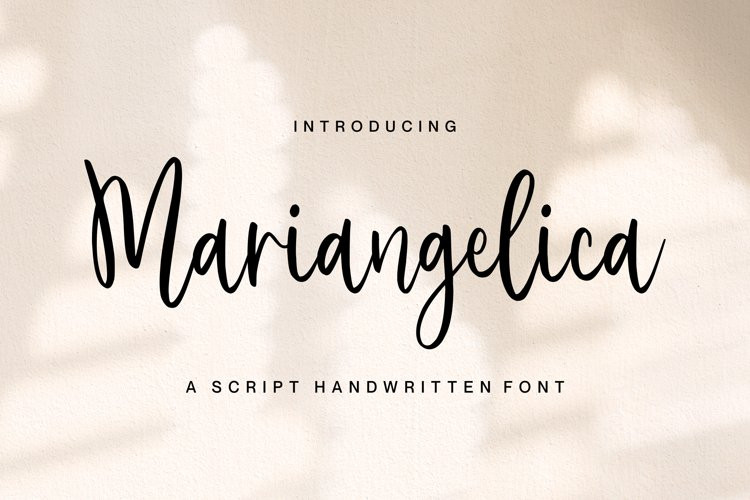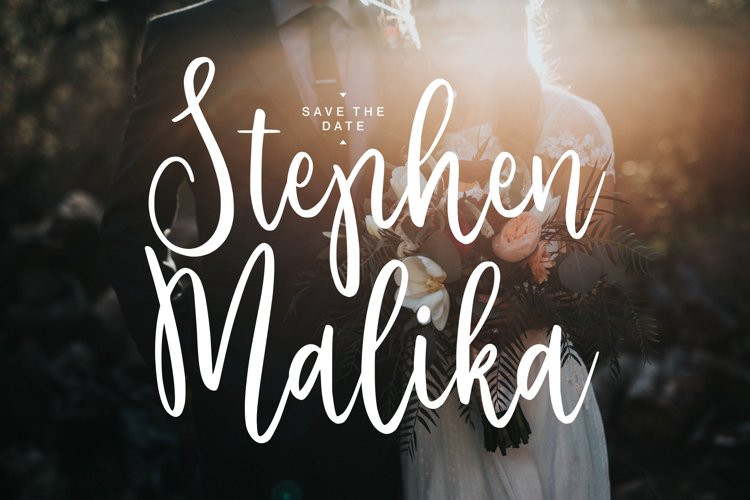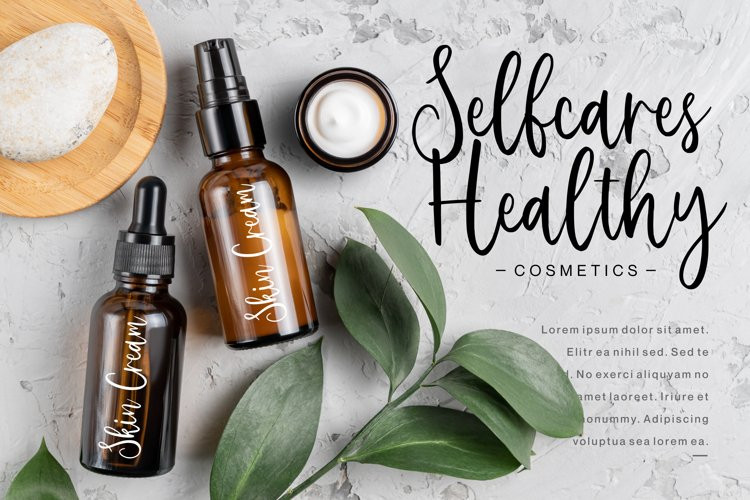
Mariangelica Font
Mariangelica FontMariangelica is A Handwritten Script Font
Mariangelica is perfect for product packaging, branding project, megazine, social media, wedding, or just used to express words above the background.